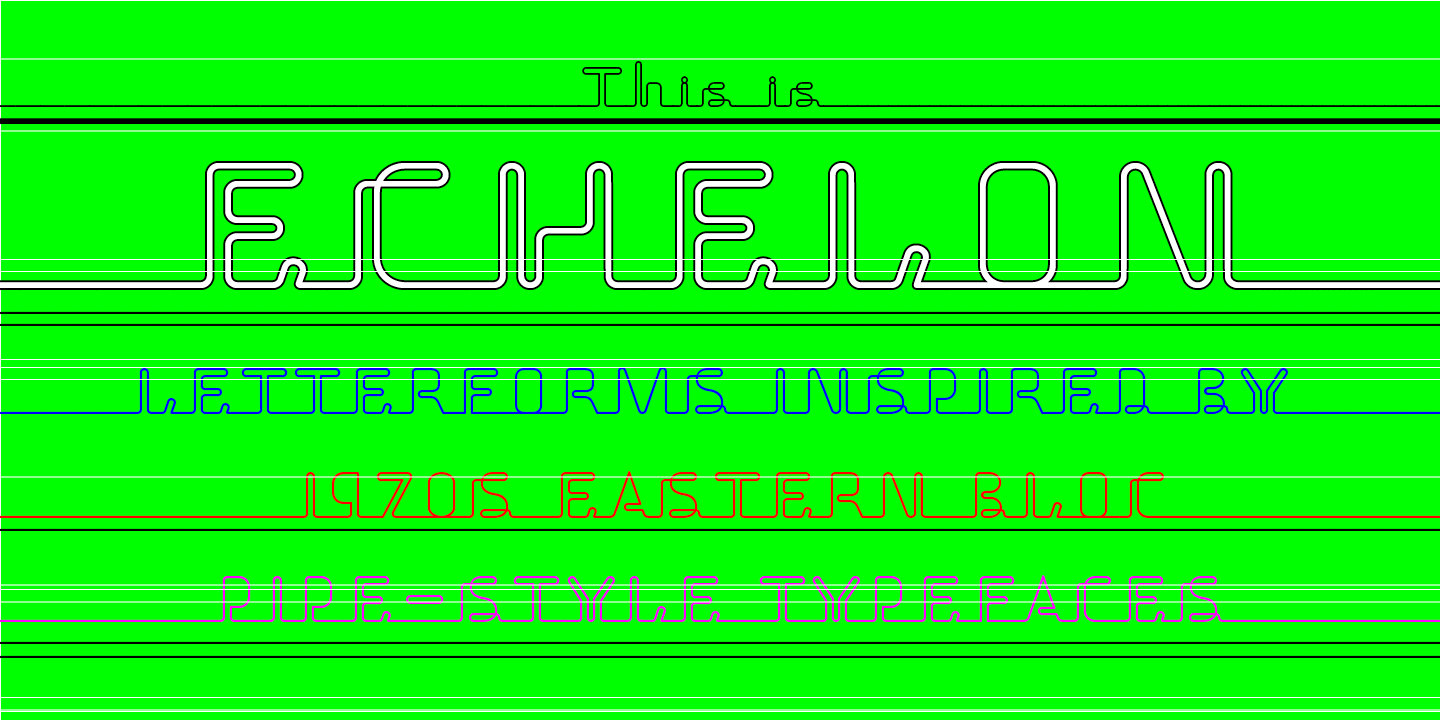
The Echelon Font is a sleek, modern, and often technical sans-serif typeface, designed to convey precision, efficiency, and a forward-thinking aesthetic. Its clean lines, often with a slightly condensed or geometric structure, make it an excellent choice for high-tech branding, software interfaces, scientific publications, automotive design, futuristic marketing materials, and digital displays where clarity is paramount. Whether you’re crafting a sophisticated app UI or a presentation for a cutting-edge concept, this font will imbue your project with a sense of intelligence and contemporary design.
What makes the Echelon Font so exciting is its exceptional ability to balance minimalist design with powerful visual presence. It often features well-defined letterforms and a strong sense of order, allowing it to convey a message with clarity and authority. This font is perfect for designers looking to create a clean, organized, and sophisticated look while still maintaining a distinct, high-tech personality. It stands out by offering a highly legible yet interesting aesthetic, making any text it graces feel modern and authoritative. The precise construction of its letterforms ensures that it looks sharp and professional across various mediums, from print to high-resolution digital displays.
The Echelon Font typically offers a comprehensive family to support diverse design needs. While specific variations may depend on the font package, you can generally expect to find a range of weights such as Thin, Light, Regular, Medium, SemiBold, and Bold, providing extensive options for hierarchy and emphasis. Many versions of the Echelon Font Free Download also include corresponding Italic or Oblique styles for each weight, adding dynamic flexibility for emphasis and stylistic variation. Additionally, some premium packages might offer Condensed or Extended widths, various figure styles (e.g., lining, tabular), and potentially even alternate characters for specific glyphs, allowing for more nuanced and custom typographic solutions. This extensive family ensures that the Echelon Font can be adapted to almost any design requirement, maintaining a consistent, modern, and highly functional aesthetic throughout your project.